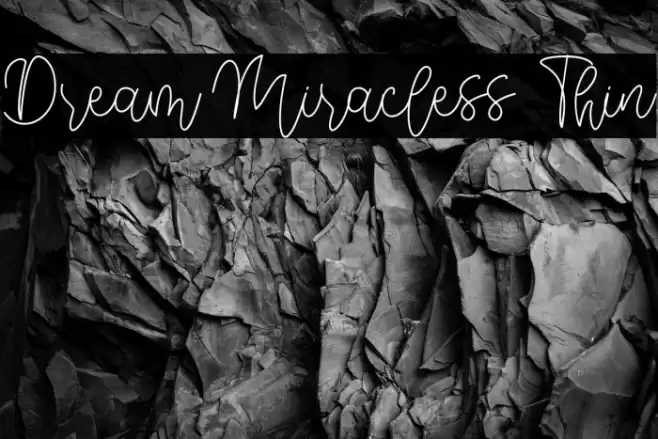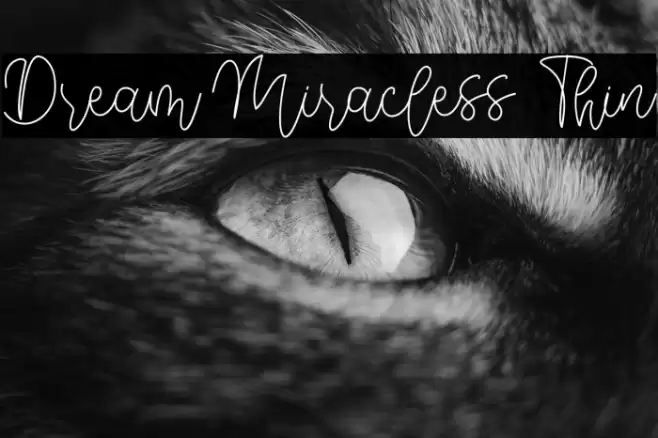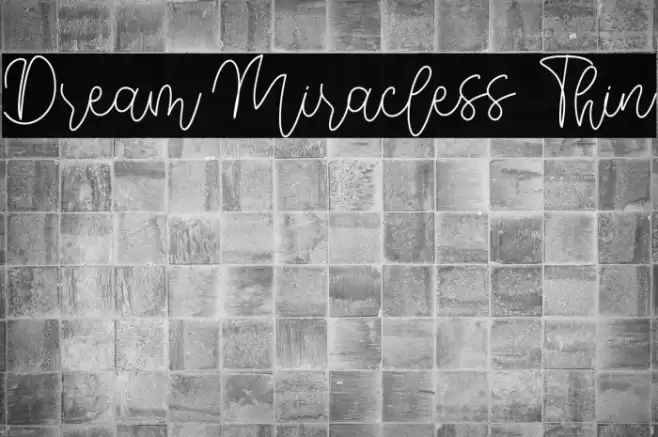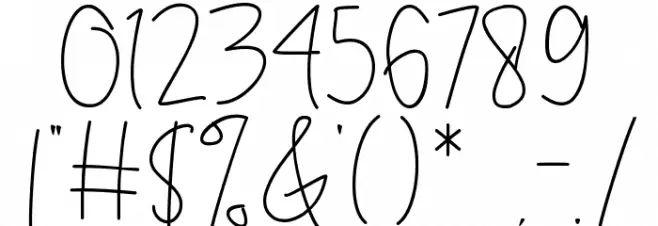
Dream Miracless Thin Font
Dream Miracless Thin Description
This font features a delicate and flowing script style, characterized by its thin, elegant lines and smooth, cursive strokes. The uppercase letters are gracefully looped, while the lowercase letters maintain a consistent fluidity, enhancing the overall aesthetic. Numbers and special characters are designed with the same attention to detail, ensuring a cohesive look across all elements. The font's thin weight adds a touch of sophistication, making it suitable for projects that require a refined and stylish appearance.
A thin, elegant script font with flowing cursive strokes from Regular fonts.
- Proposed Projects: Ideal for wedding invitations, elegant branding, personal stationery, and romantic quotes.
- Weight: Light
- Overall Style: Elegant
- Use Case: Logos, Invitations, Decorative text